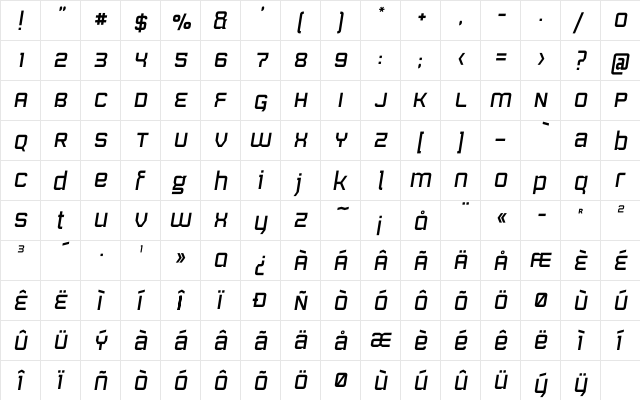
mrh Anton Oblique
| Designer | Mads Rahbek Hougaard |
Design Context for mrh Anton Typeface
mrh Anton takes a measured approach to typography — its balanced proportions and neutral character make it a reliable workhorse for both digital and print work. Its italic angle brings a sense of urgency and motion to the letterforms.
Pro Tip: Try mrh Anton for annotation and caption copy alongside an upright companion — the contrast in angle creates a dynamic but ordered typographic system.